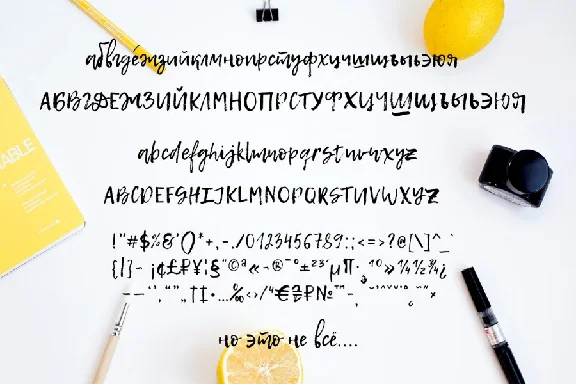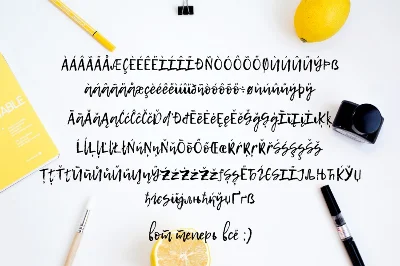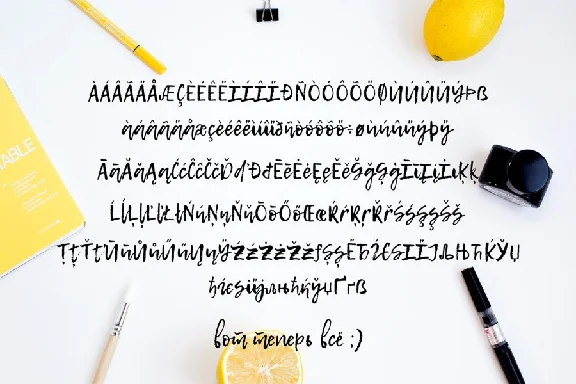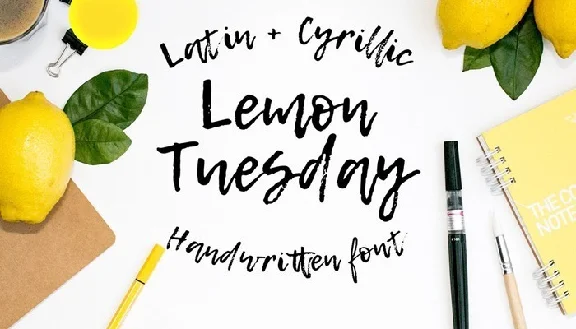
Font LEMON TUESDAY
We present to your attention a super-vacant font.
Lemon Tuesday is primarily aimed at short emotional inscriptions, mainly for creating beautiful content on social networks and niche media. The font contains a basic set of Cyrillic characters, as well as an extended register of characters for the Latin alphabet.